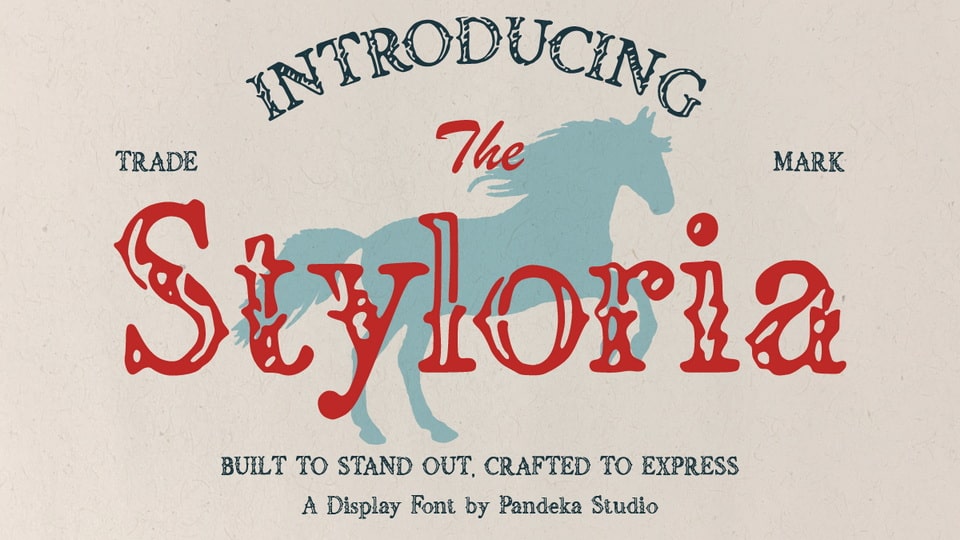
Download Styloria font, a bold vintage display typeface with a western aesthetic and classic lettering style. With a timeless design and strong typography, Styloria captures the authentic spirit of the Old West, adding a unique, rugged character to any project.